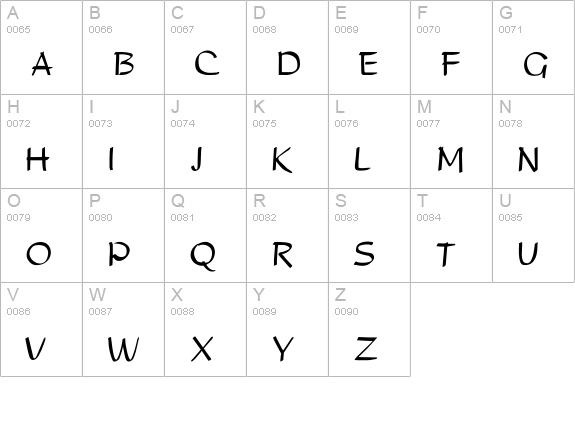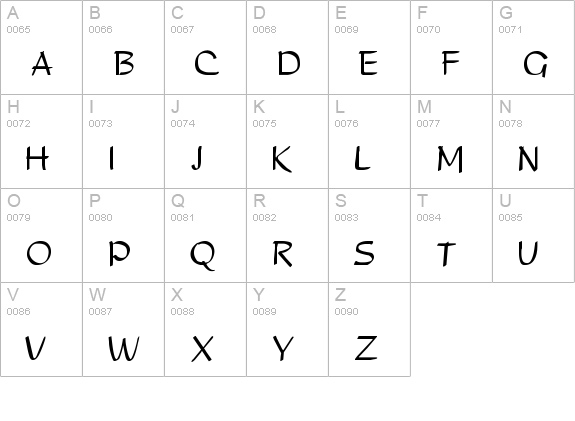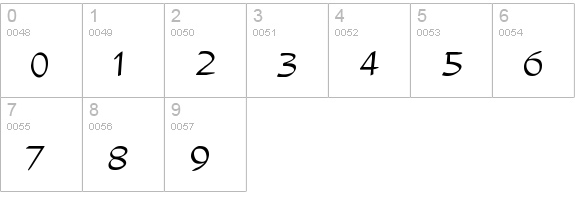
Alvina Font Details
Alvina font is a beautifully crafted typeface that effortlessly balances elegance and modernity. Its sleek and sophisticated design makes it perfect for a wide range of projects, from branding to editorial design. The clean lines and subtle curves of Alvina font exude a sense of refinement and style that will elevate any design it is used in. The versatility of this font allows it to be used in various contexts, adding a touch of class and sophistication to any project. What sets Alvina font apart is not only its stunning appearance but also its accessibility. This exquisite font is available for free download at FontsMarket.com, making it easily accessible to designers and creatives looking to add a touch of sophistication to their projects without breaking the bank. Whether you are working on a personal project or a professional assignment, Alvina font is sure to impress with its timeless beauty and effortless charm. Elevate your designs with Alvina font today and see the difference it can make!